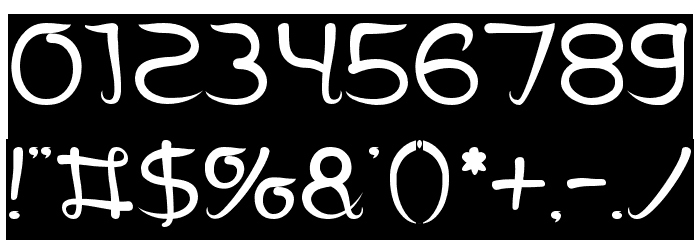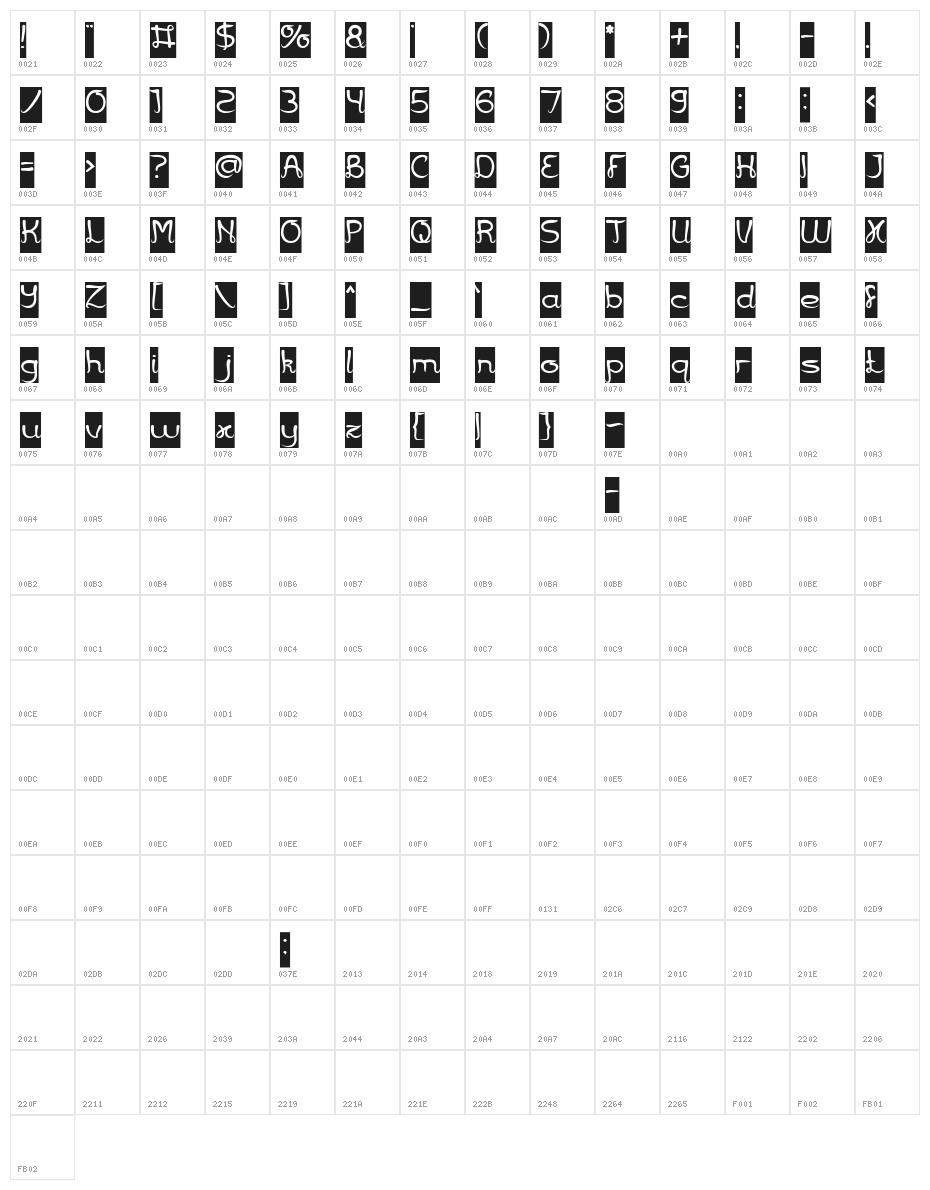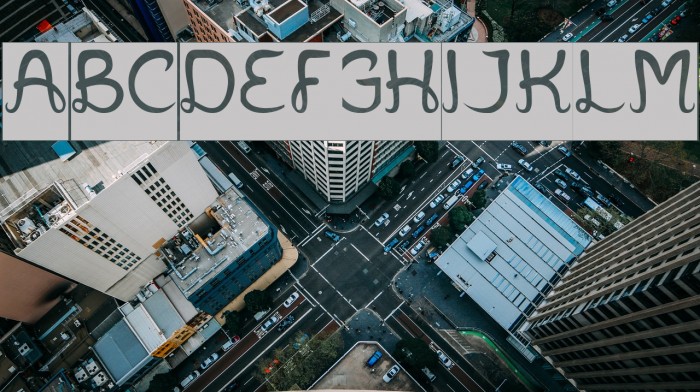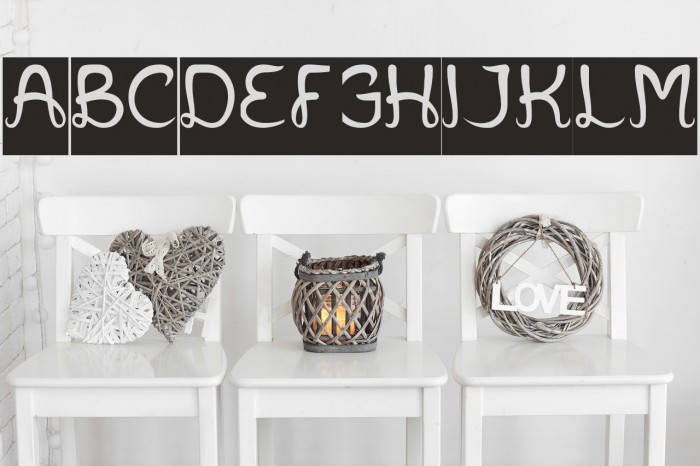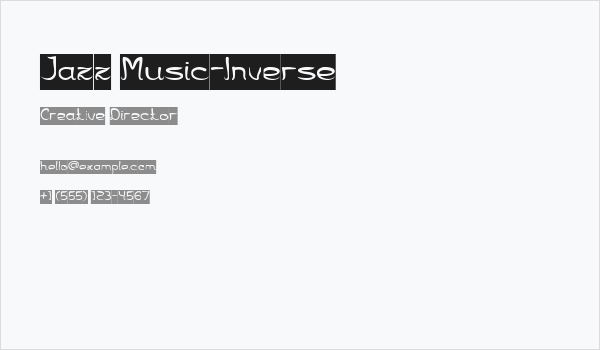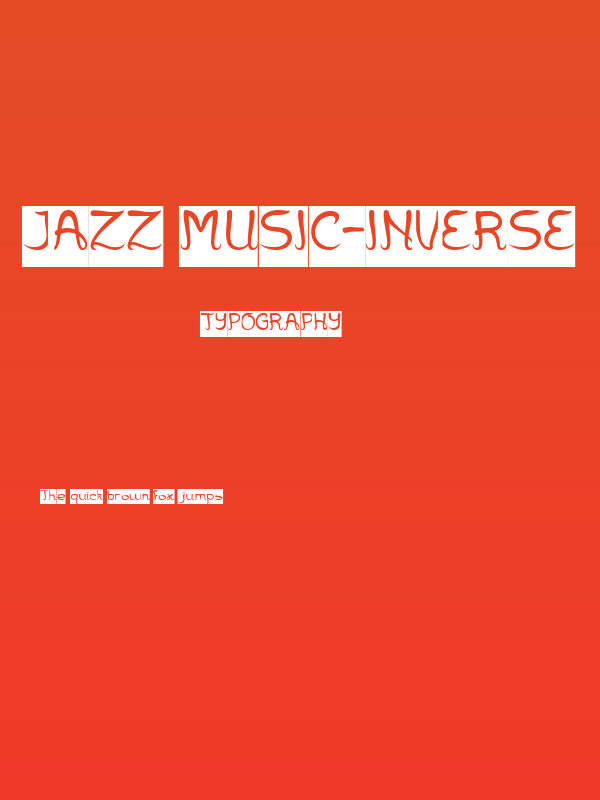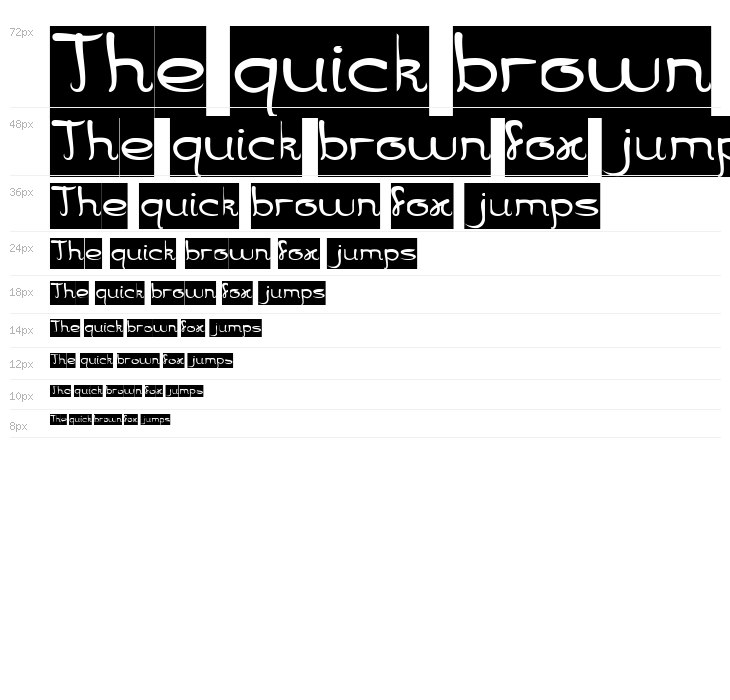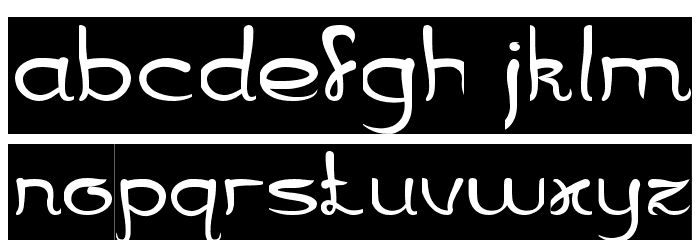
Jazz Music-Inverse Font
Jazz Music-Inverse Description
This font features a playful and dynamic style with a handwritten flair, characterized by its flowing, cursive-like strokes. The uppercase letters exhibit a unique blend of boldness and elegance, with distinctive loops and curves that add a sense of movement. The lowercase letters maintain a consistent style, offering a harmonious balance between readability and artistic expression. Numbers and special characters are crafted with the same attention to detail, ensuring a cohesive look across all elements. The overall design is reminiscent of jazz music, capturing a sense of rhythm and improvisation.
| Proposed Projects | Ideal for music-themed posters, album covers, creative branding, and artistic invitations. |